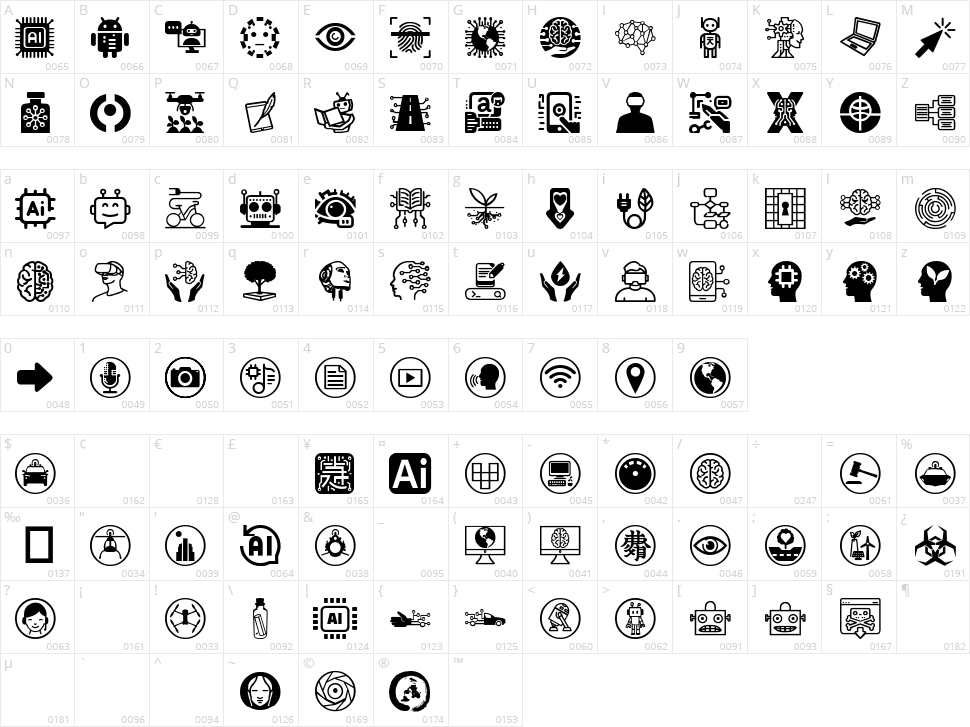
Artificial Intelligence
Note of the author More than 100 artificial intelligence icons selected and/or designed by University of Oregon Green Cities students.
Designer Name: Ric Stephens